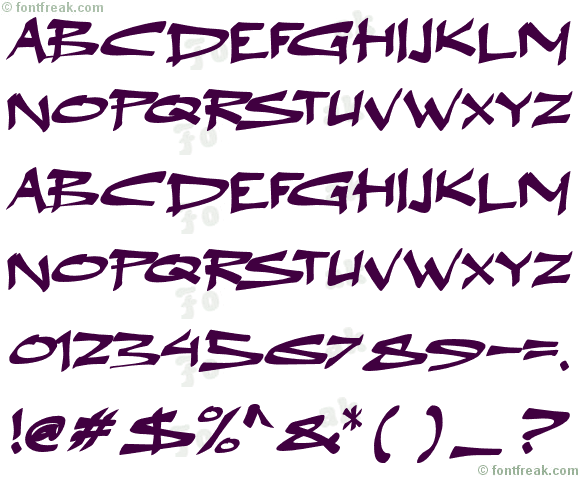
a Abrigy Think
The a Abrigy Think font by Wahyu Eka Prasetya is a captivating display typeface that stands out with its unique, artistic flair. This font features a hand-drawn aesthetic, characterized by playful strokes and an organic feel that conveys creativity and spontaneity. The irregularities in stroke weight and spacing add a dynamic quality, making it perfect for eye-catching designs. Its distinctive letterforms are adorned with subtle decorative elements, which enhance its visual appeal without overwhelming the overall readability.
Ideal for a variety of creative projects, a Abrigy Think excels in use cases such as wedding invitations, where its whimsical style can evoke romance and elegance. It also shines in crafting engaging movie posters, lending a sense of intrigue and artistic expression that can draw viewers in. Restaurant menus can benefit from this font's charm, providing a friendly and inviting atmosphere that resonates with diners. Additionally, it serves well in branding materials for small businesses aiming to convey a unique personality and connect with their audience on a more personal level.
What truly sets the a Abrigy Think font apart is its ability to blend creativity with functionality. Its distinctiveness ensures that any design utilizing it will stand out, while its legibility makes it practical for various applications. This font is not just a typeface; it's a statement piece that can breathe life into your projects and leave a lasting impression.